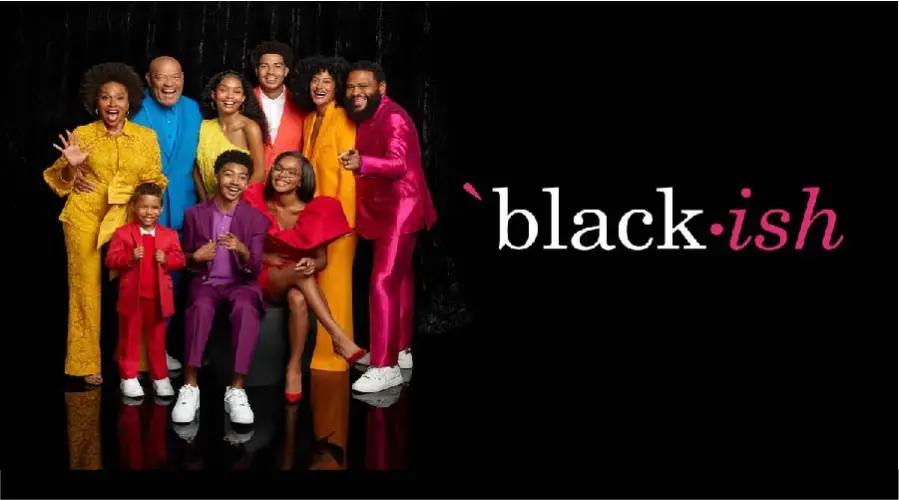
The logo of Blackish font consists of two fonts. Century Schoolbook font was used for the “black” part, and its italic version was used for the “ish” part. This font is not free, and you need to buy a license to use it. But you can use the VI Cam Thach font as a free alternative.
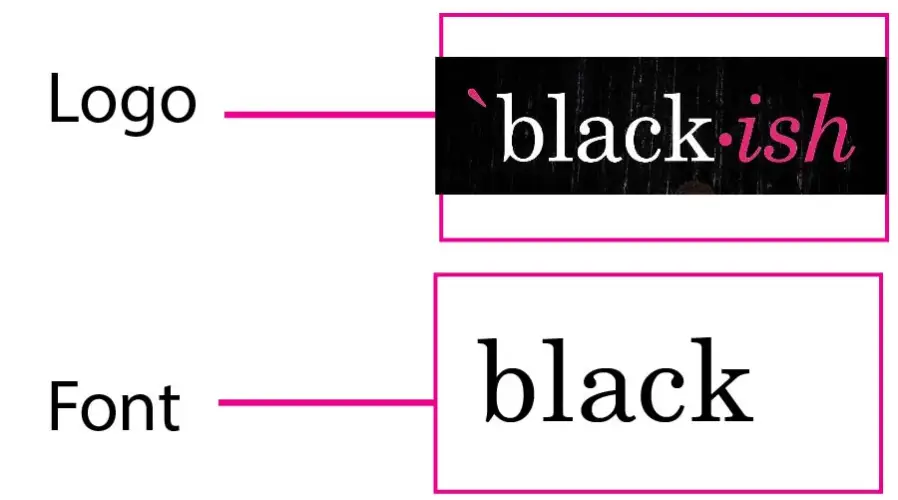
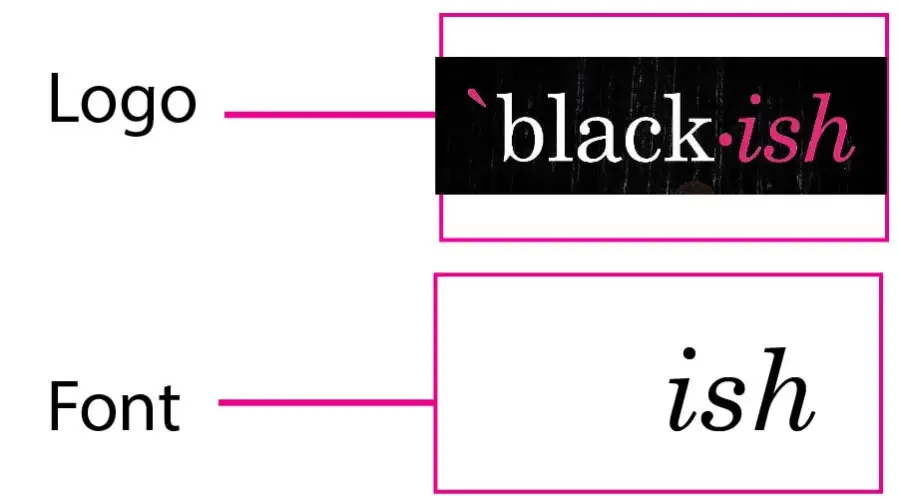
In short, Blackish is a paid font that combines two versions of Century Schoolbook for its logo. You can use VI Cam Thach as a free alternative.